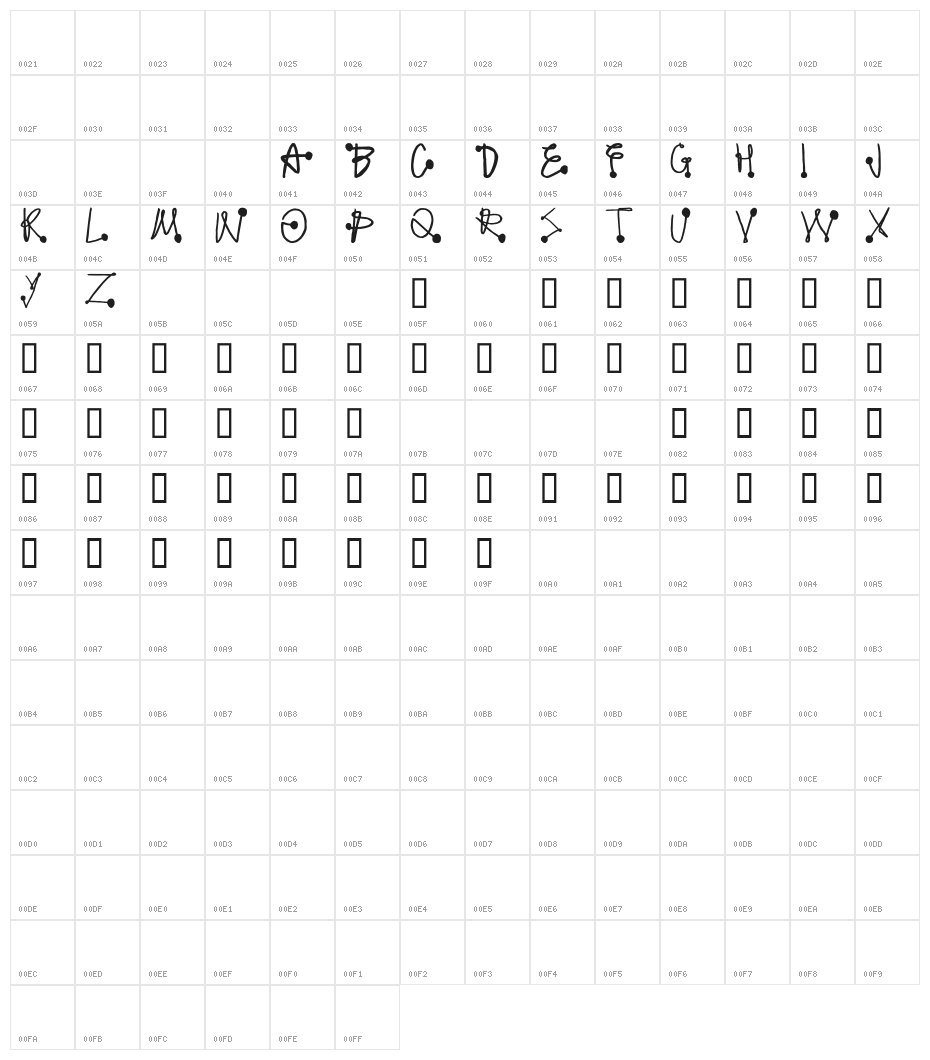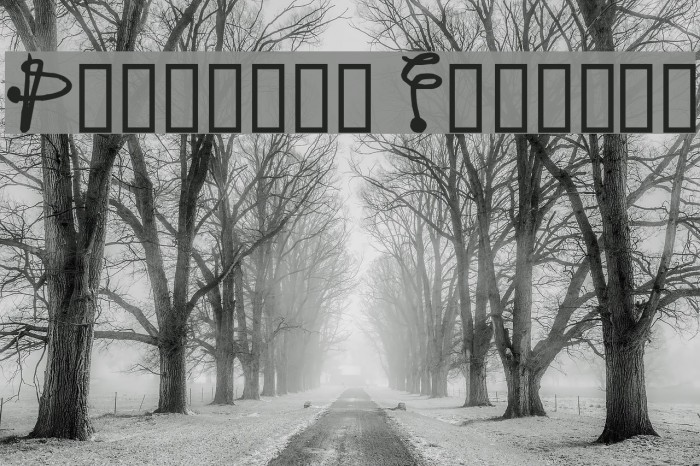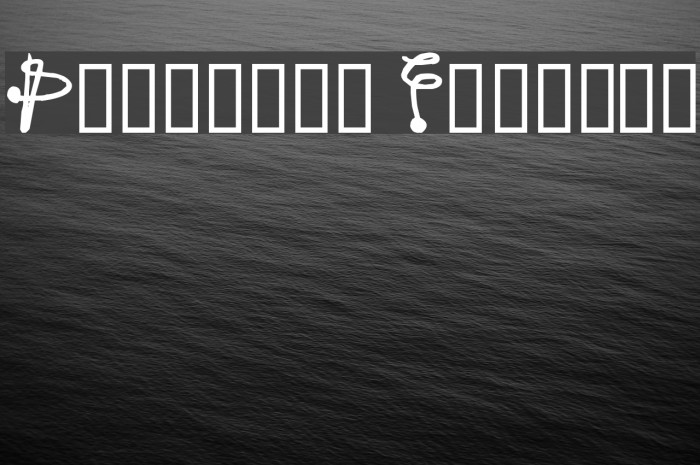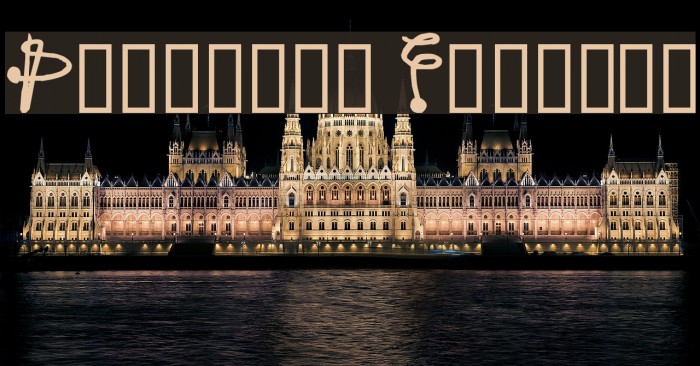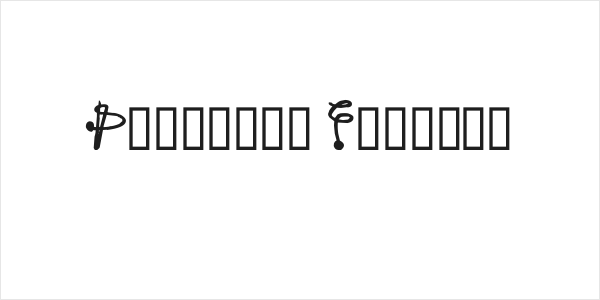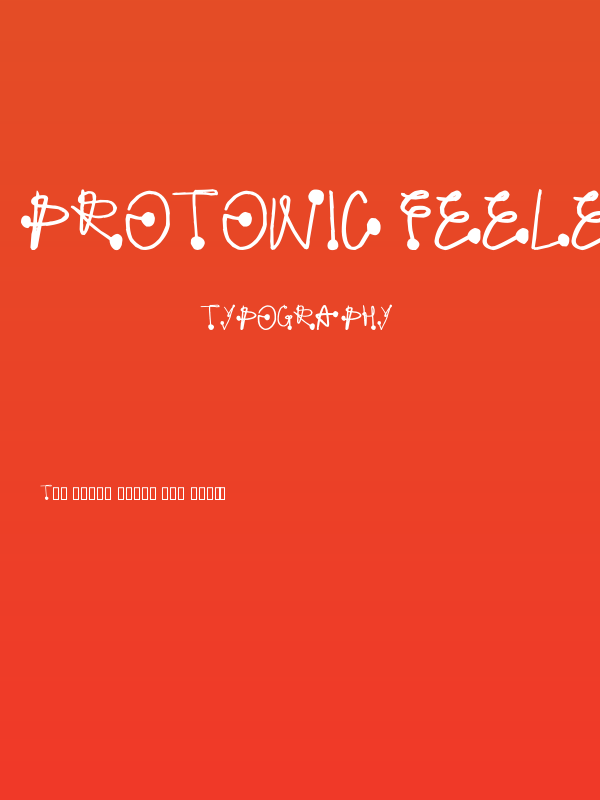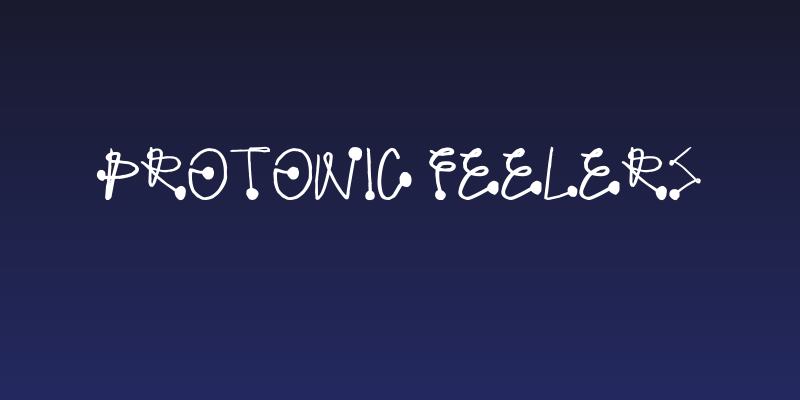
Protonic Feelers Font
Protonic Feelers Description
This font features a playful and whimsical design, characterized by bold, rounded strokes and unique dot embellishments at the ends of each letter. The uppercase letters have a lively, dynamic appearance, with varying stroke angles that add to the font's energetic feel. The absence of lowercase letters and numbers suggests a focus on decorative and display purposes. The font's distinctive style makes it suitable for creative and informal applications, where a touch of fun and personality is desired.
| Proposed Projects | Ideal for children's book covers, playful posters, party invitations, and creative branding projects. |